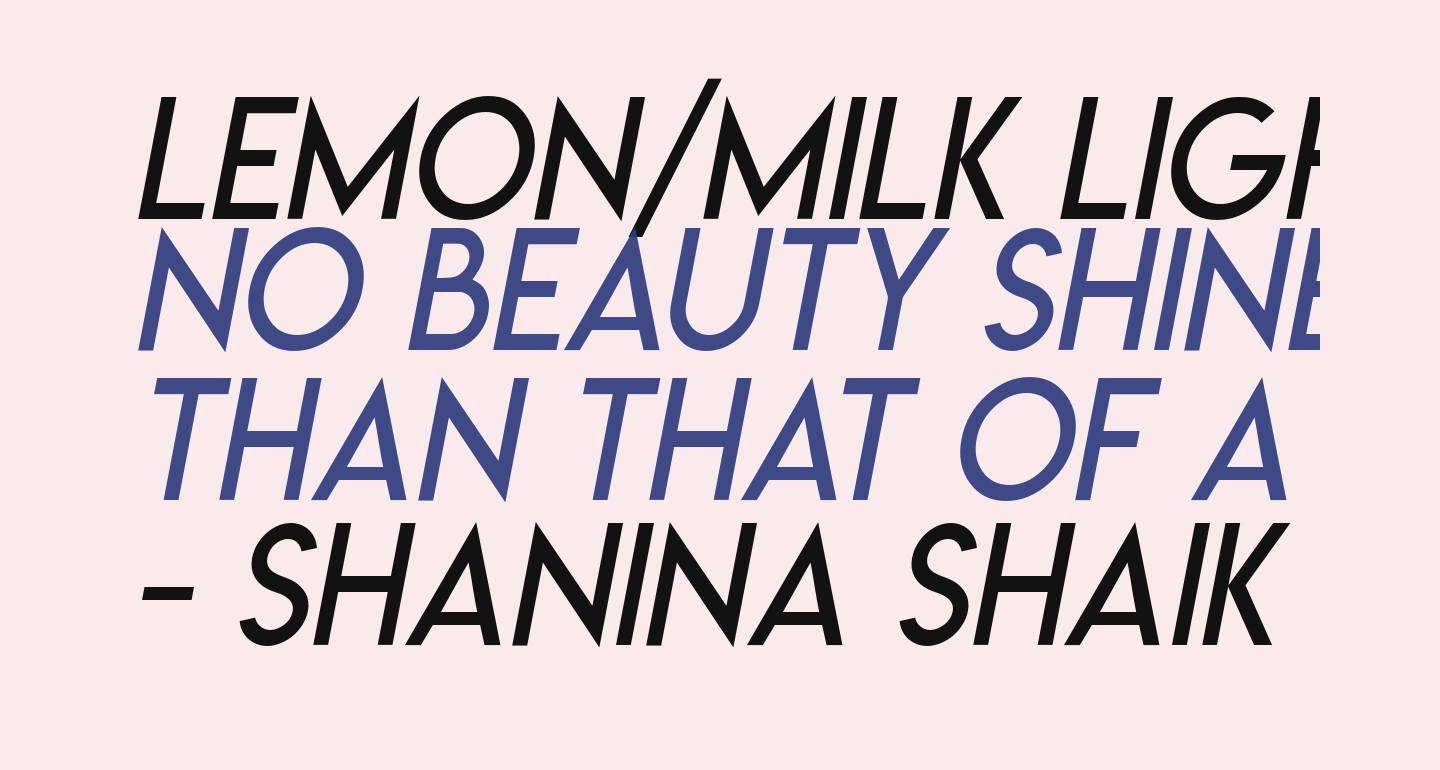
Be prepared to be blown away by it’s culture! Download the lemon milk pro ultra light italic font for mac or windows in opentype, truetype or postscript format. Right here is the lemon milk font that is used for its bold and italic function.
After many years of release, it finally called a pro font. Today we introduce a very special and classical typeface named lemon milk font. Lemon/milk font family series mainly provide regular italic,regular,light italic,bold and other font styles.
Get Lemon Milk With Lowercases, Covering Extended Latin, Cyrillic, And Greek.
It comprises distinctive sharp sans merged with light strokes that give an elegant and modern look to the design. Directiononly strongly left to right glyphs + contains neutrals. But, that could be a spotless looking like zootopia font a good way to provide you with the effects you want.